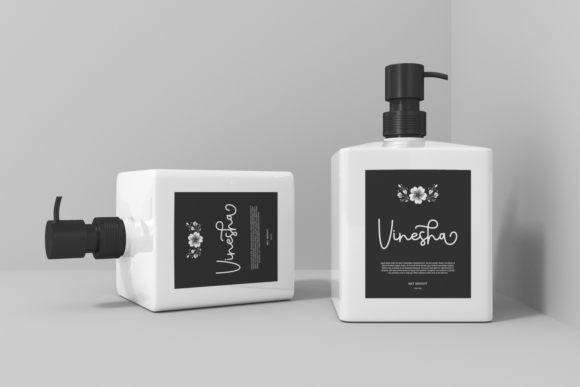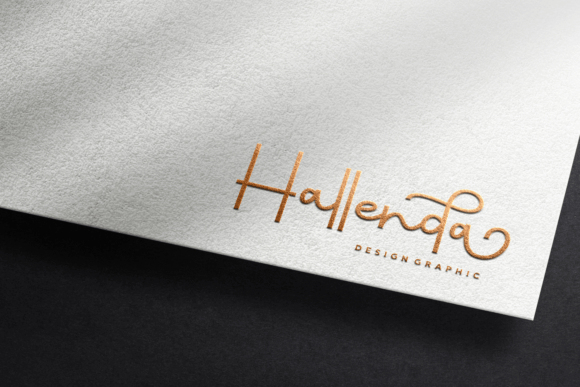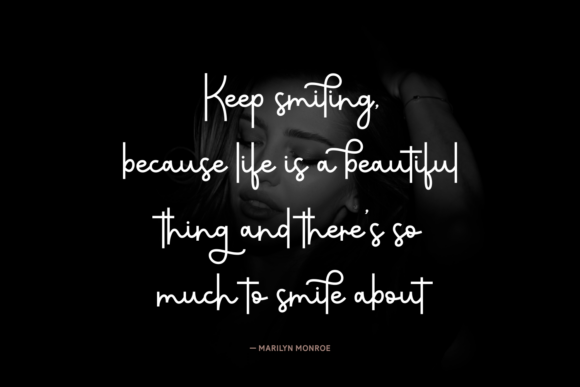
Introduction to Olivinda Font
As a designer, have you ever stumbled upon a project that sparks creativity and pushes you to think outside the box? For me, it’s often the small details – a beautiful font, a unique texture, or a clever composition – that elevate a design from good to great. Recently, I discovered Olivinda Font, and I couldn’t help but feel a surge of inspiration.
Designed with a clean, minimalist touch and creative loops, Olivinda Font is the perfect addition to any creative project. Its simplicity and versatility make it an ideal design resource for both professional and artistic designs. Whether you’re working on branding, invitations, social media posts, or product packaging, Olivinda Font brings a contemporary and refined elegance to your projects.
Key Features of Olivinda Font
- Perfect for use in logo design, branding, and other creative projects where a sophisticated and refined font is required.
Honest Review: Olivinda Font
As a designer, I’m always on the lookout for high-quality design resources to enhance my creative projects. Recently, I stumbled upon the Olivinda Font, and I must say, it’s been a pleasant discovery. This elegant script font is perfect for adding a touch of sophistication to your designs.
Here are some aspects that work well for me:
- ✨ Beautiful, handwritten-like script that’s perfect for creative projects
- ⚠️ Limited character set, which may not be suitable for extensive text-based projects
- ⚠️ Not ideal for bold or heavy text usage, as it may lose its elegance
Overall, I’m impressed with the Olivinda Font. It’s a great addition to any designer’s toolkit, and I would highly recommend it for creative projects that require a touch of sophistication and elegance. Just be aware of its limitations, and use it accordingly.
Tips for Getting the Most Out of Olivinda Font
For the best results, use Olivinda Font on a transparent background to create a clean and modern design. You can also pair it with other design elements to create a unique and creative project.
Olivinda Font is perfect for creating a variety of design projects, including business cards, flyers, and social media graphics. Its high-quality design and free download make it an excellent resource for designers of all levels.